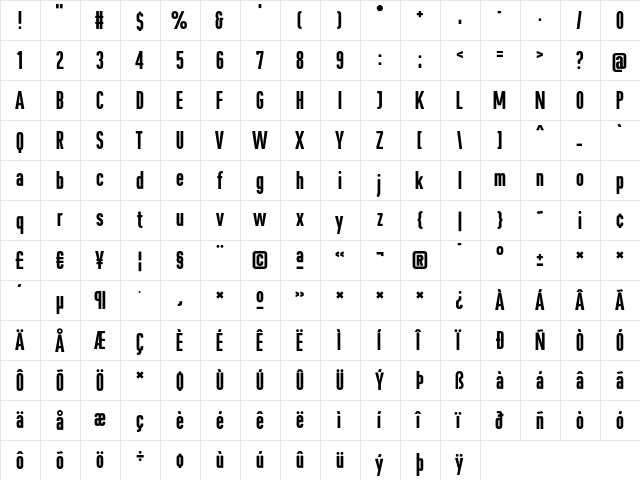
CstBerlinEast Bold
Design Context for CstBerlinEast Typeface
CstBerlinEast takes a measured approach to typography — its balanced proportions and neutral character make it a reliable workhorse for both digital and print work. Its bold stroke weight gives it real presence on the page.
Pro Tip: Use CstBerlinEast in both headline and body roles to test its range before committing to a single application.